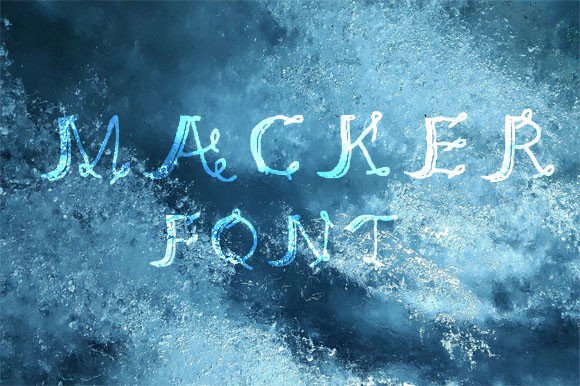
Macker Font
About Macker Font
**Meet Macker: The Unique Handwritten Font**
Macker is not your typical handwritten font; it brings a unique and distinctive character to your designs. Here’s what sets Macker apart:
1. **Varying Thickness:** Macker features varying line thickness, which mimics the natural and spontaneous strokes of handwritten text. This variation adds depth and personality to your text, making it look less mechanical and more human.
2. **Handmade Feel:** The font captures the essence of handmade craftsmanship, making it perfect for projects that require a touch of authenticity and originality.
3. **Artistic Expression:** Macker’s unconventional style allows it to serve as an artistic tool in your design arsenal. It’s a font that encourages creativity and experimentation.
4. **Unique Character:** Each letter in Macker is crafted with care, resulting in a one-of-a-kind look. This uniqueness sets your text apart and makes it memorable.
5. **Versatility:** While Macker has a distinct style, it remains versatile. It can be used in various design projects, from branding to packaging, posters to social media graphics.
6. **Playful and Expressive:** The font’s irregularity and varying thickness give it a playful and expressive quality. It’s perfect for conveying emotion and personality in your text.
7. **Natural Flow:** Macker’s letters flow naturally, creating a sense of movement in your text. This fluidity is ideal for projects that require dynamic and engaging typography.
8. **Organic Aesthetic:** The font’s organic, handcrafted look makes it suitable for designs that want to evoke a sense of authenticity and connection to nature.
9. **Customization:** Macker can be customized to suit your specific design needs. Experiment with colors, sizes, and effects to create the desired visual impact.
10. **Artistic Projects:** If you’re an artist or illustrator, Macker can be a valuable addition to your toolbox. Use it to add hand-drawn elements to your artwork.
11. **DIY Creativity:** Whether you’re designing greeting cards, invitations, or crafting, Macker’s artistic style can enhance your DIY projects.
12. **Typography Freedom:** Macker breaks free from conventional typography rules, giving you the freedom to create designs that are truly unique and original.
13. **Attention-Grabbing:** Macker’s irregularities and handcrafted charm make it inherently attention-grabbing. It draws the viewer’s eye and encourages closer inspection.
14. **Warmth and Approachability:** The font’s handmade feel exudes warmth and approachability, making it suitable for designs that want to establish a friendly and personal connection.
15. **Edgy and Creative:** Macker adds an edgy and creative flair to your text, making it perfect for projects that aim to stand out and make a statement.
By choosing Macker as your handwritten font, you’re selecting a typeface that goes beyond the ordinary. It’s a font that celebrates imperfections, embraces creativity, and adds a distinctive character to your designs. Whether you’re designing for artistic expression, branding, or simply want to make your text more captivating, Macker is your creative companion. Explore its unique qualities and unleash your design potential!